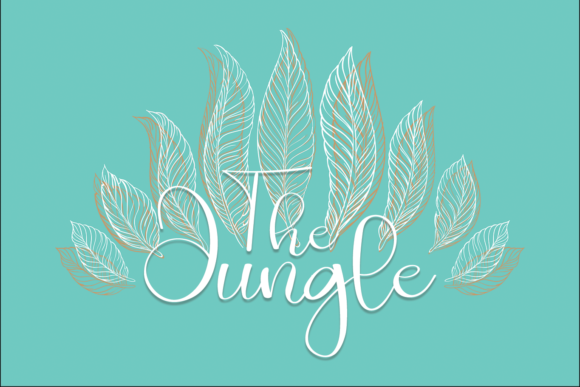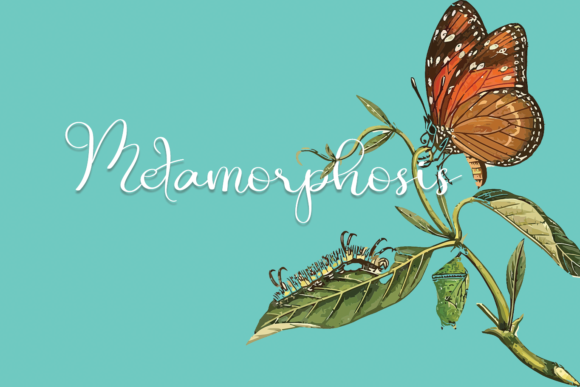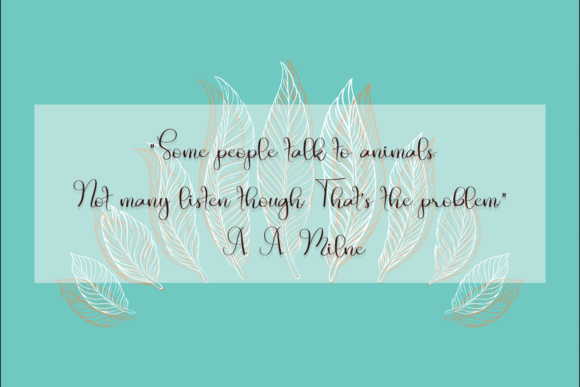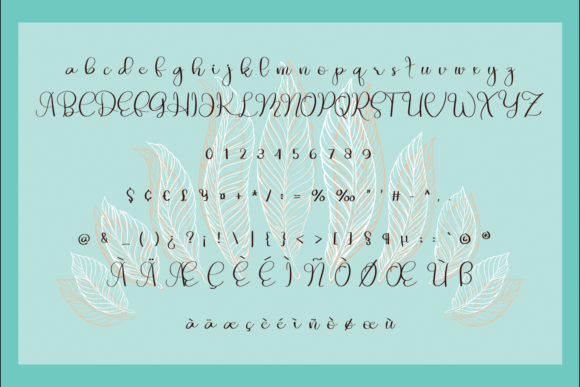
About Animals Font
Introducing Animals, a fashionable script font that exudes style and sophistication. Neatly crafted and highly detailed, Animals is a versatile font that can enhance any creation in your font library, regardless of the topic or design context.
Animals’ fashionable script design sets it apart as a font that captures attention and adds a touch of elegance to your projects. Each letter is meticulously crafted with high attention to detail, creating a visually appealing composition. This level of precision and detail adds a sense of refinement and sophistication to your designs, making them stand out.
The versatility of Animals allows it to shine in various design contexts. Whether you’re working on branding projects, social media graphics, packaging, invitations, or any other creative endeavor, Animals adds a touch of style and flair. Its fashionable nature creates a visually captivating and trendy aesthetic that enhances the overall visual appeal.
Animals’ meticulously crafted design and attention to detail make it perfect for adding a fashionable touch to your projects. The high level of detail and fine lines bring an air of sophistication and artistry. Whether used for fashion-related designs, editorial layouts, or custom typography, Animals adds a sense of style and uniqueness to your compositions.
No matter the topic or design context, Animals has the potential to enhance any creation. Its versatility and attention to detail make it suitable for a wide range of projects. From fashion and lifestyle designs to creative and artistic endeavors, Animals brings a unique sense of style and refinement, enhancing the overall impact of your creations.
In summary, Animals is a fashionable script font that adds style and sophistication to your projects. Its neatly crafted and highly detailed design captures attention and adds elegance to your compositions. Embrace Animals’ versatility and let it enhance the beauty and uniqueness of your creations, creating visually captivating compositions that leave a lasting impression.